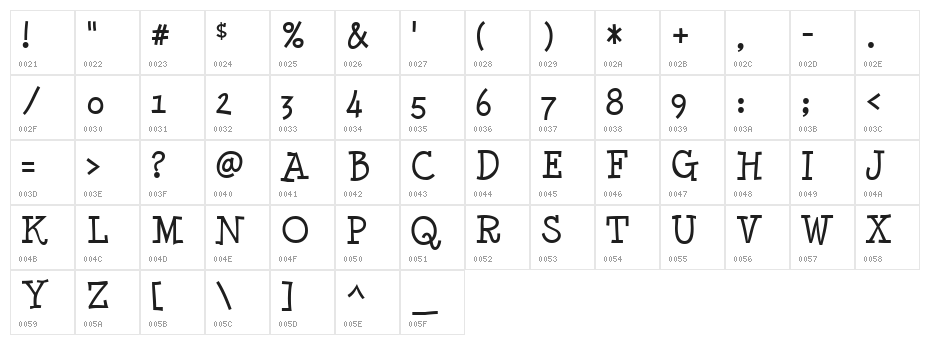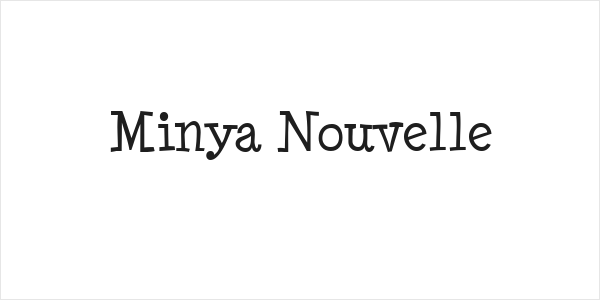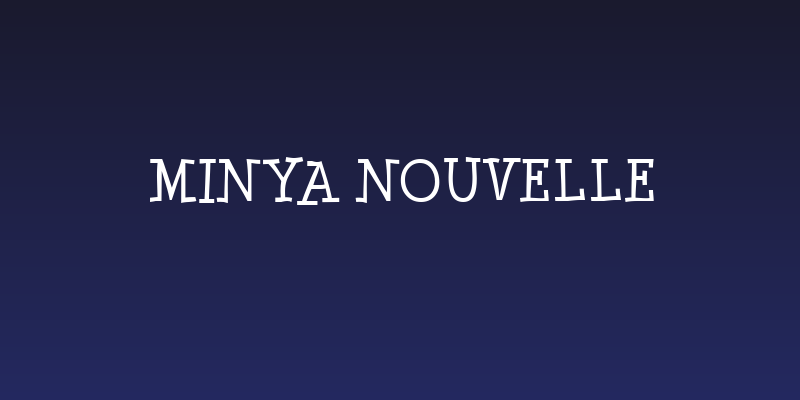
Minya Nouvelle Font
Minya Nouvelle Description
This font features a playful and whimsical design with a unique blend of curves and angles. The uppercase letters are bold and slightly condensed, giving them a strong presence, while the lowercase letters maintain a consistent style with a touch of flair. The numerals are distinct and easy to read, with a slight tilt that adds to the overall playful aesthetic. Special characters are well-integrated, maintaining the font's cohesive look. The strokes vary in thickness, providing a medium contrast that enhances readability without sacrificing style.
| Proposed Projects | Ideal for children's books, playful branding, creative posters, and whimsical invitations. |